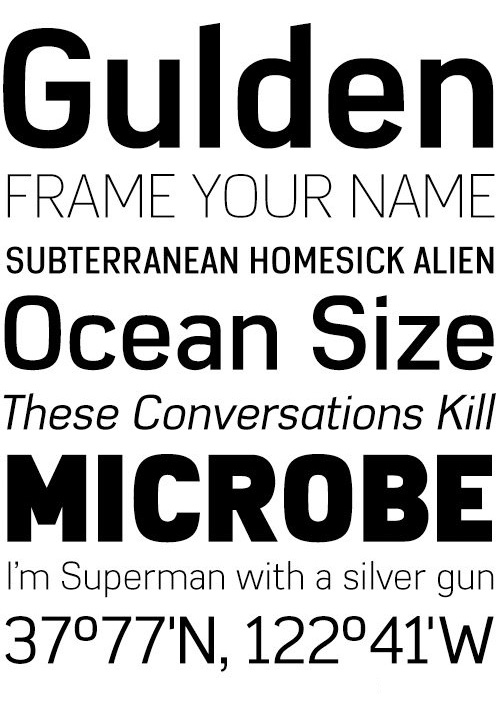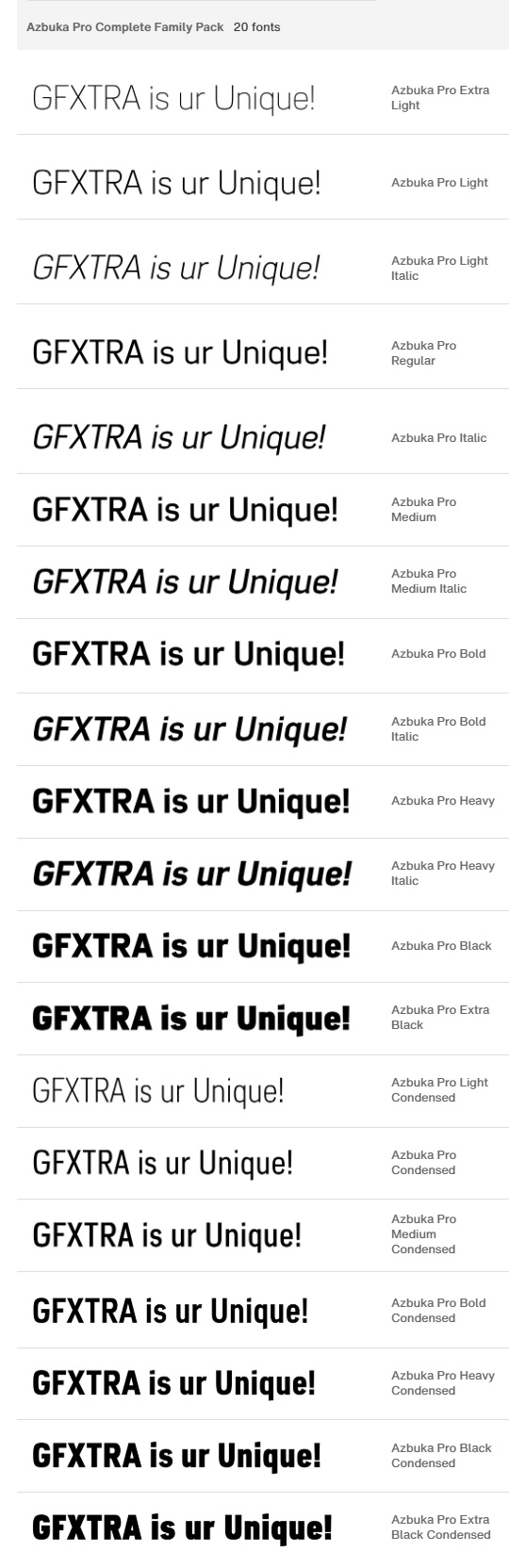
- The Azbuka™ typeface family has its roots in a fairly pedestrian source. “The idea came in part from an old sign in London that read ‘SPRINKLER STOP VALVE’,” says Dave Farey, designer of the typeface. Like all good sign spotters, Farey took a photograph of the sign and filed it away for possible use in a lettering or typeface design project. In Prague a number of years later, the street signs reminded Farey of the London signage - and his camera came out again. Comparing the two back in his studio, he realized that the signs from London and Prague were not as similar as he initially thought. However, they were enough alike to serve as the foundation for a no-frills, 21st century sans serif typeface family.